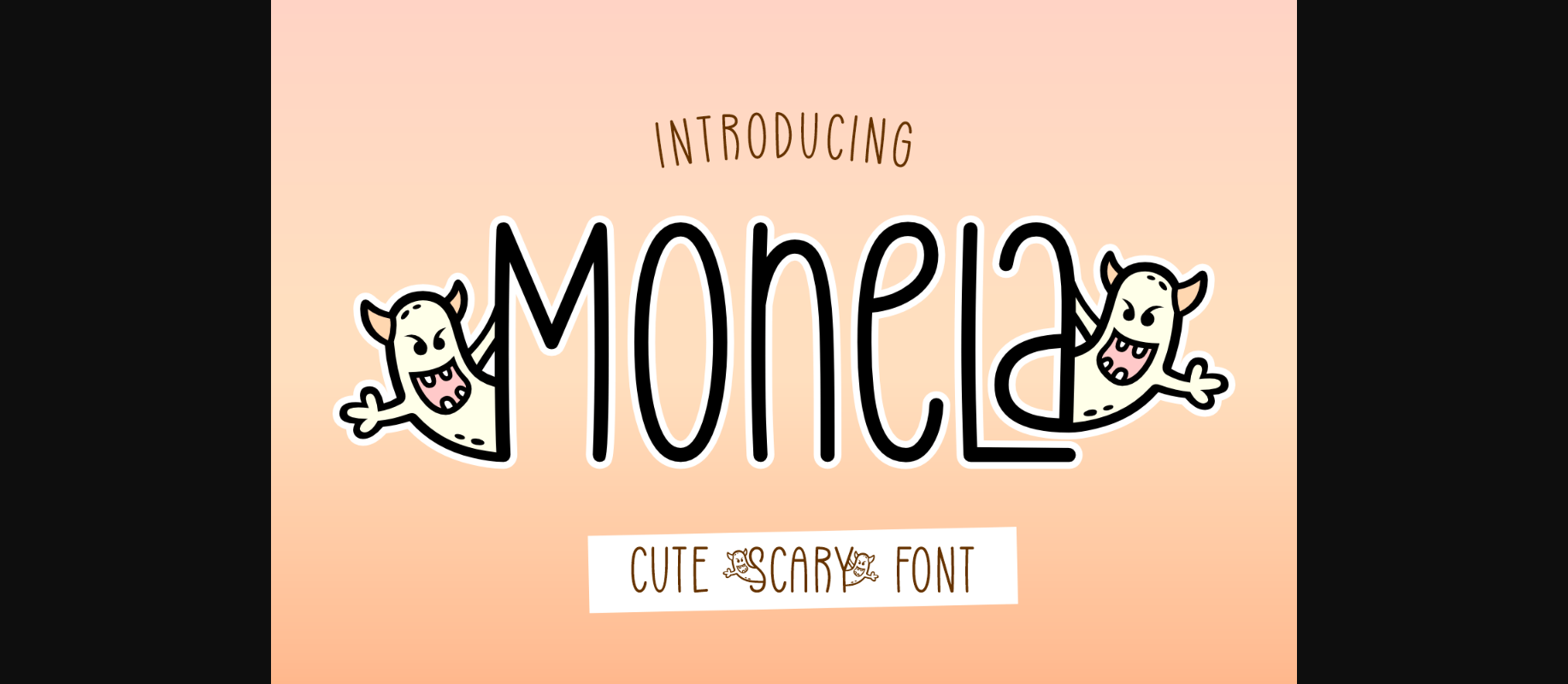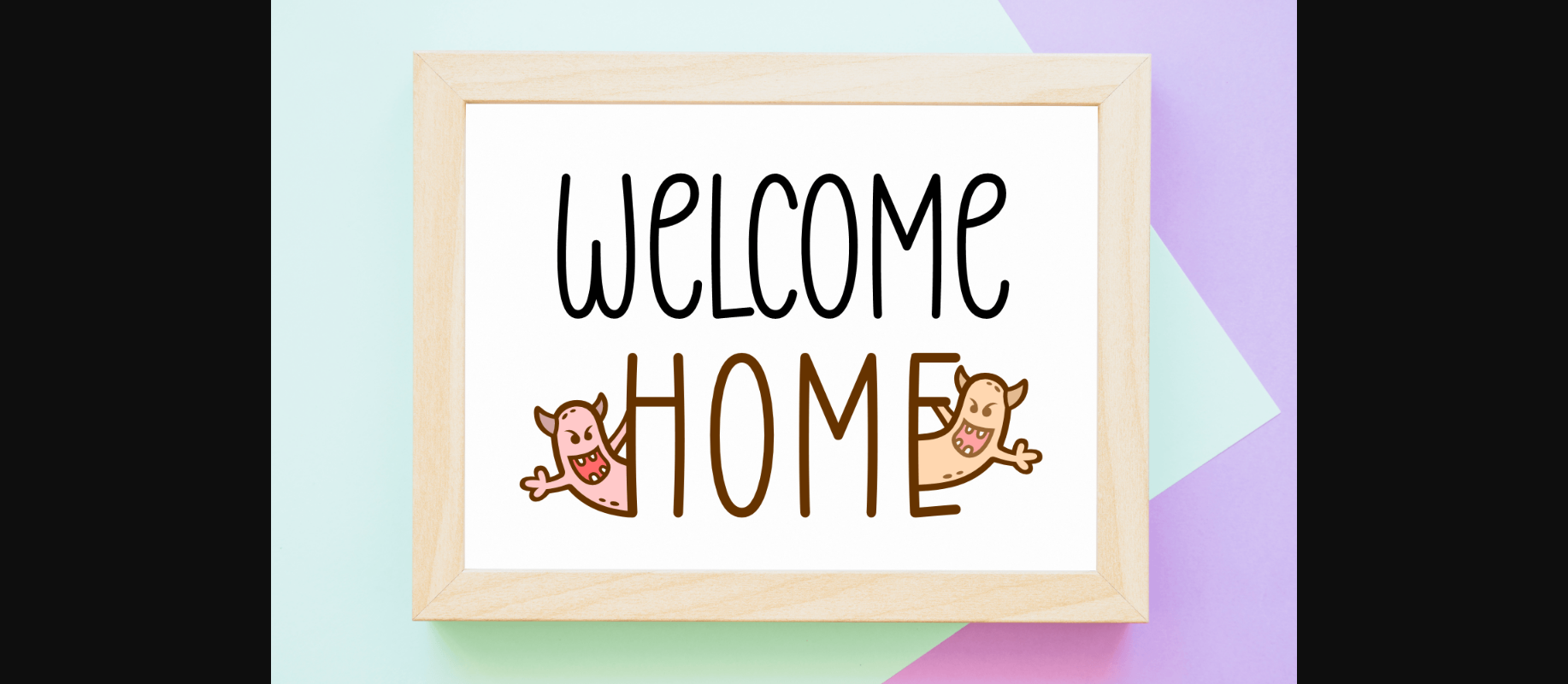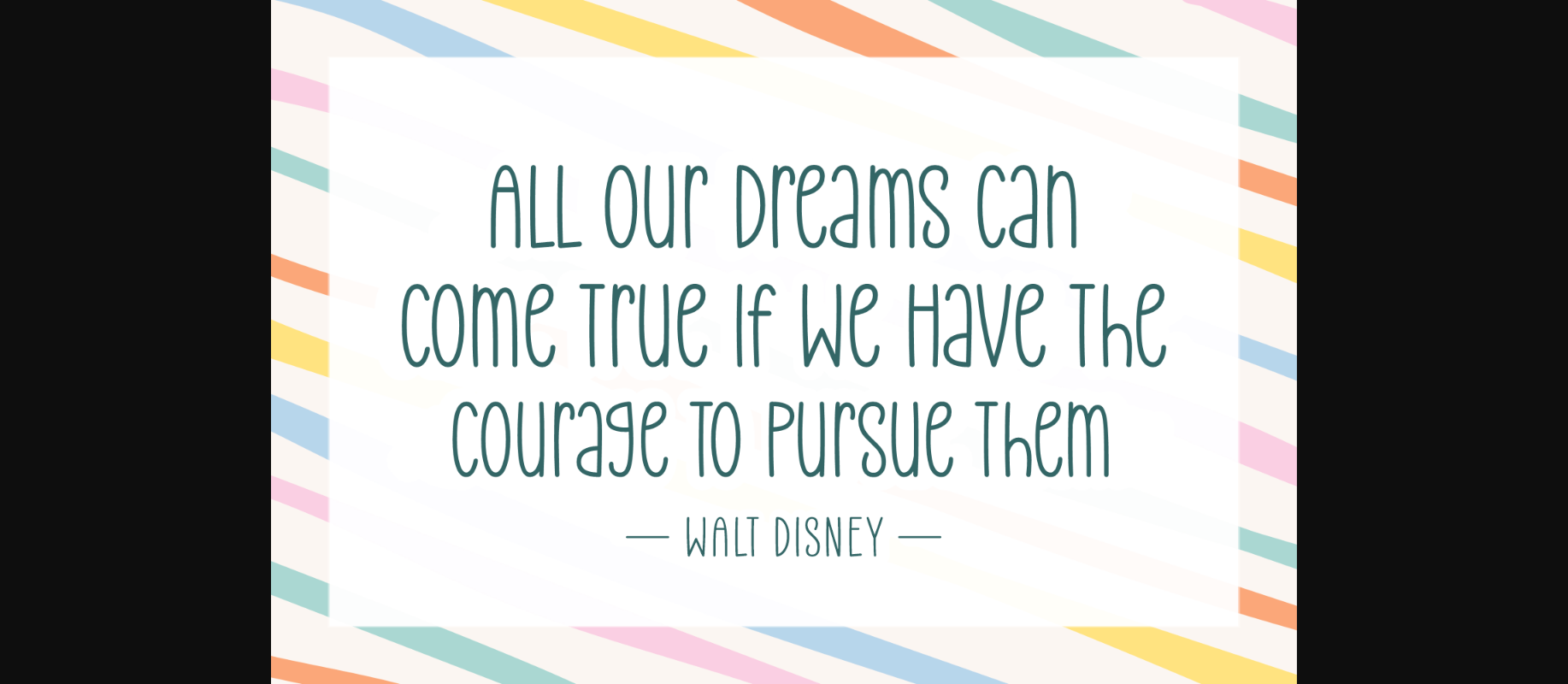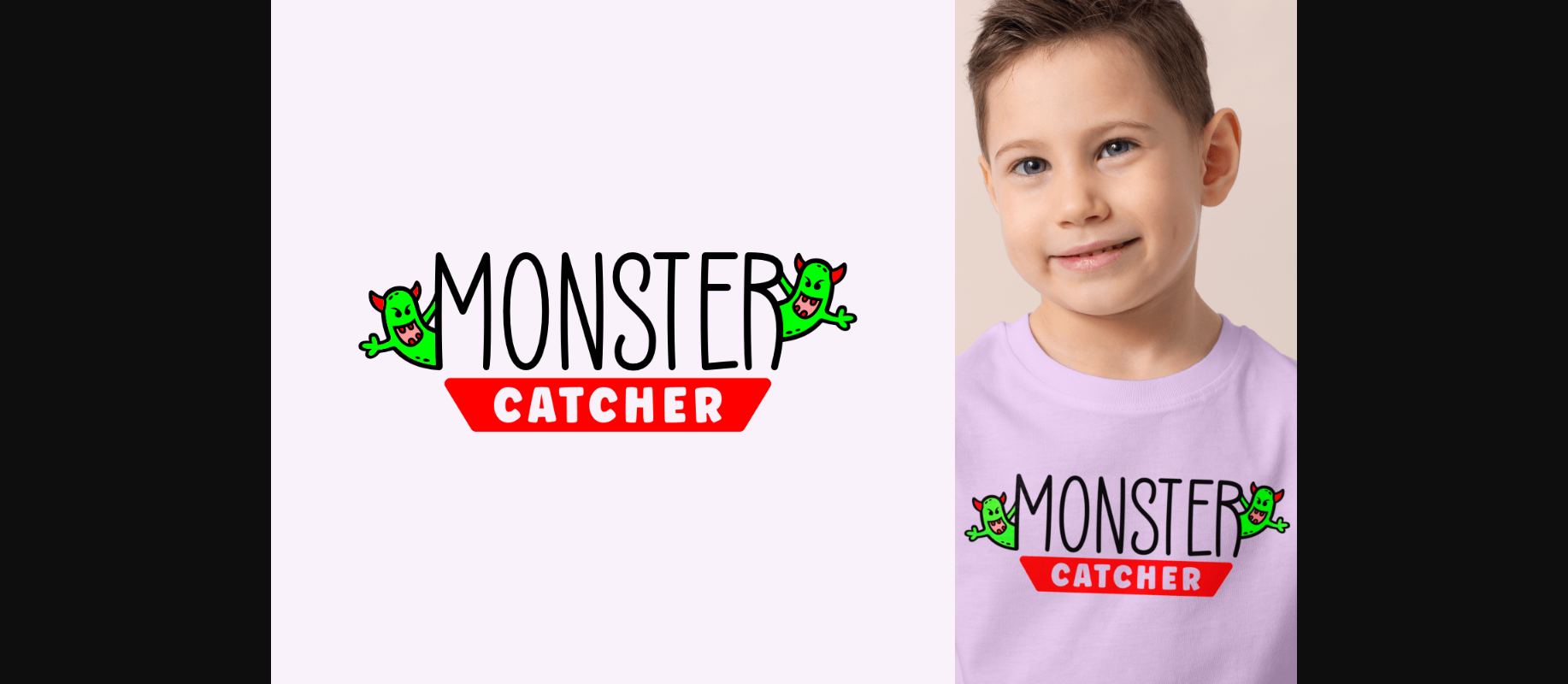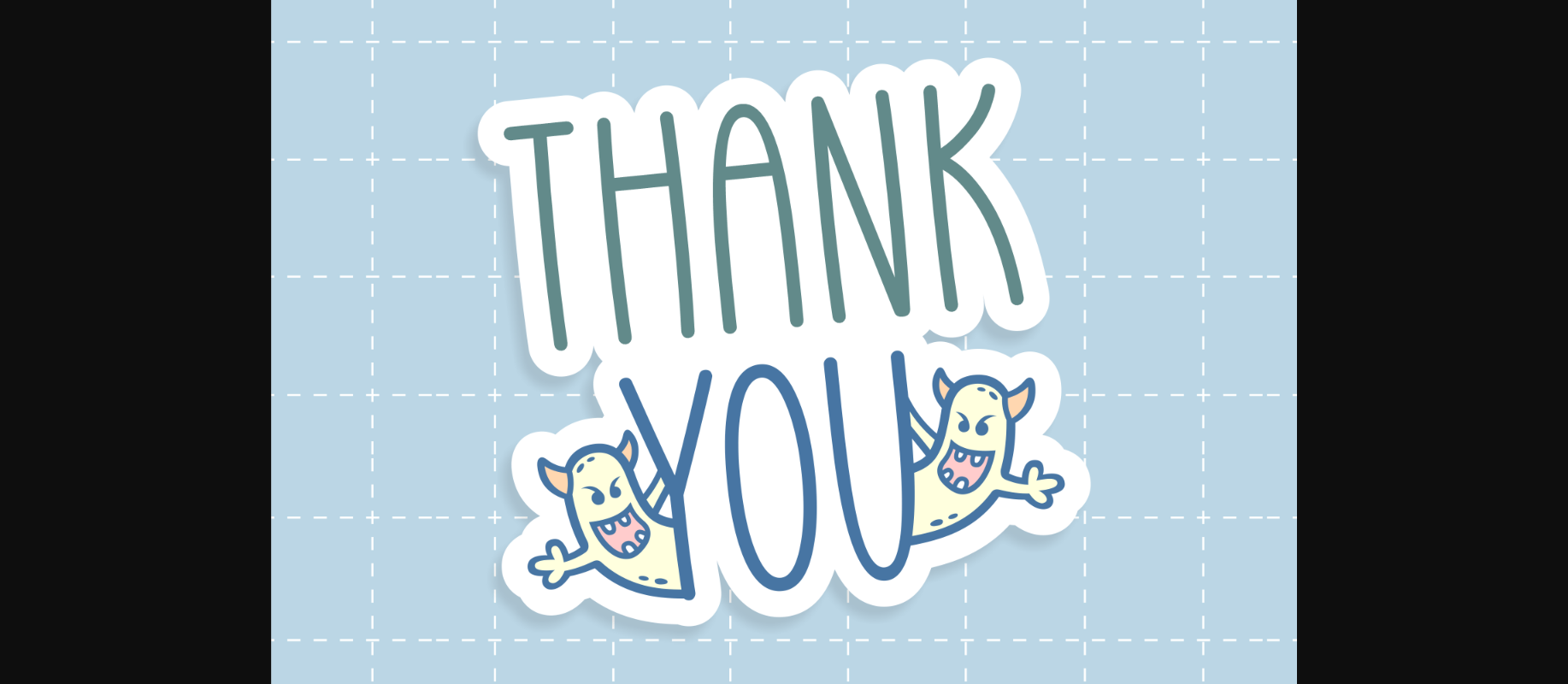
Monela Font
About Monela Font
Monela is a cute and original decorative font. These spooky little monsters will help you create outstanding kid-friendly designs. Get this unique typeface and use it for Halloween-themed projects, decorations, t-shirts, posters, baby onesies, and more. It includes both decorated characters and plain ones.